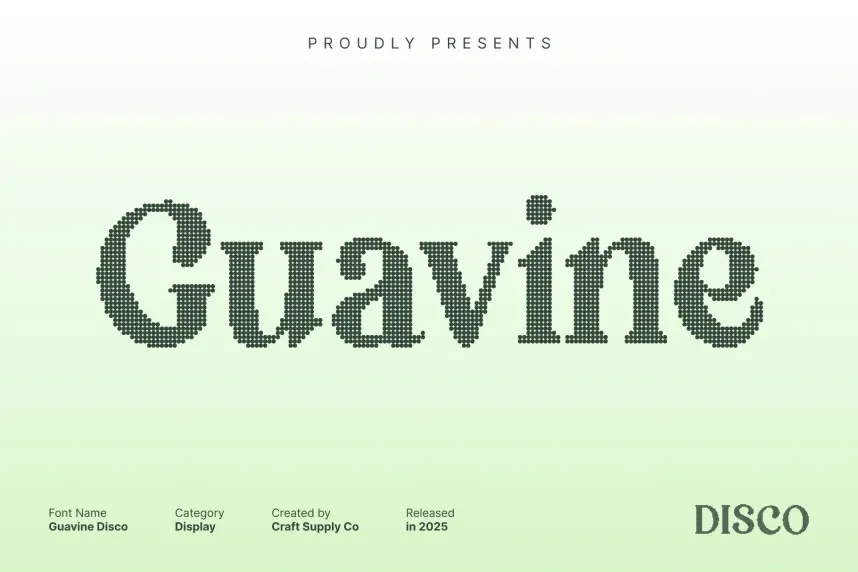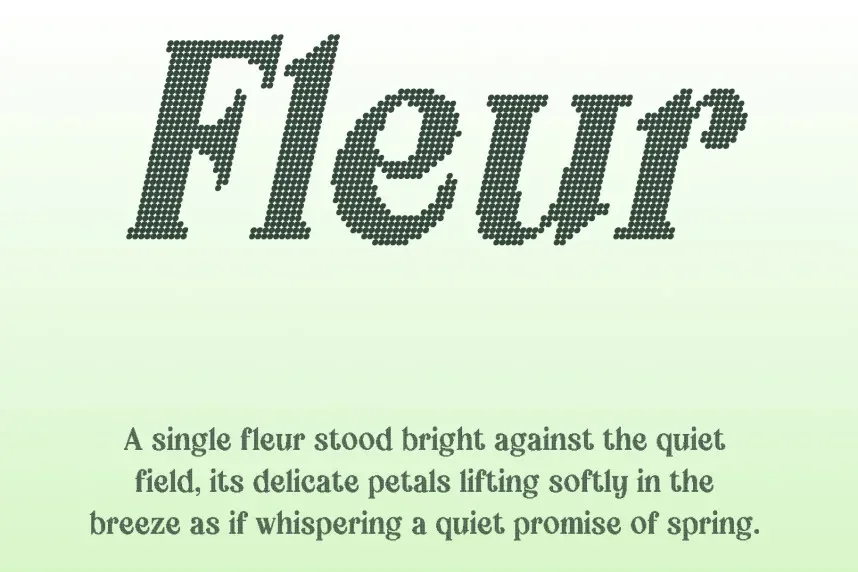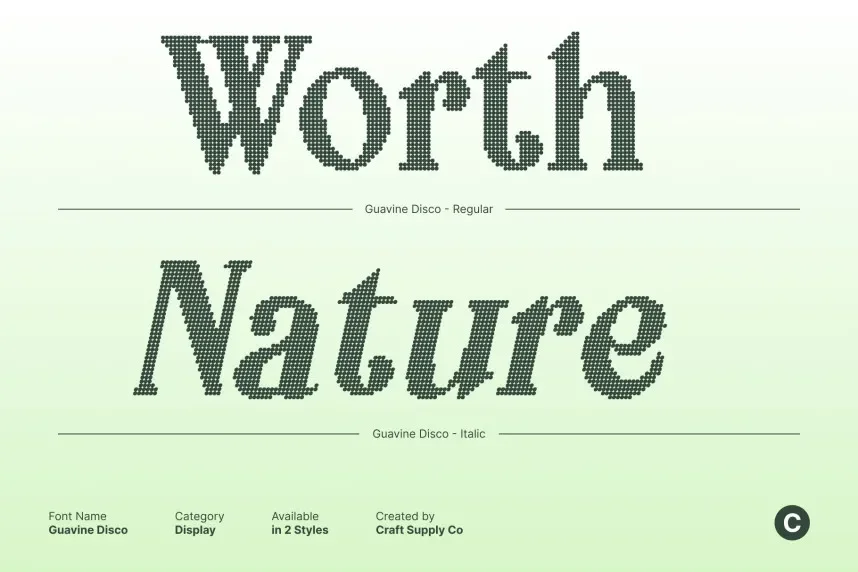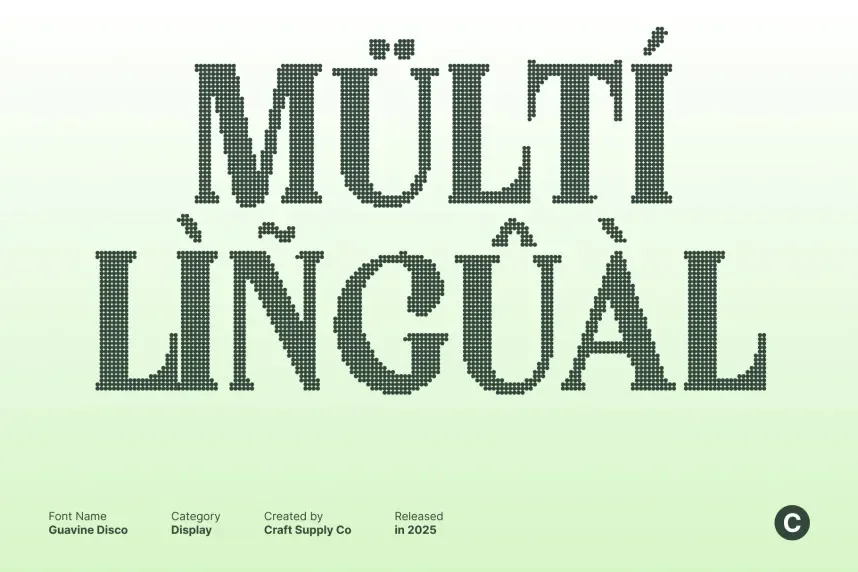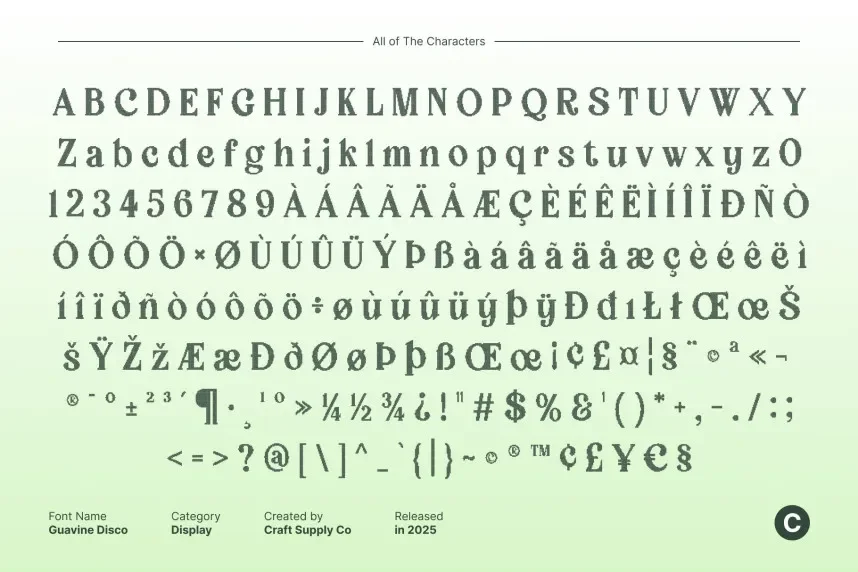
Guavine Disco Font is a bold, energetic display typeface with retro roots. Its sharp, exaggerated letterforms make it ideal for creative projects that need to capture attention, such as event flyers, promotional material, and music posters.
Best used for event branding, promotional posters, and logos, Guavine Disco Font pairs well with simple, modern fonts for readability. Available in TTF and OTF formats, it includes a commercial-use license. Always verify licensing for commercial projects.